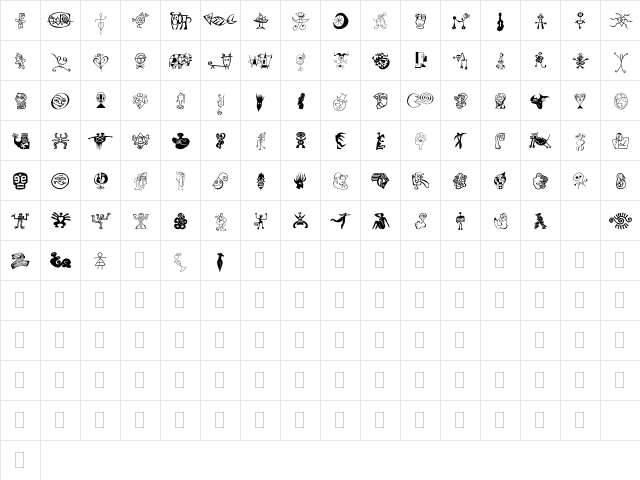
DF Moderns Regular
| Foundry | International Typeface Corporation |
| Designer | David Sagorski |
Design Context for DF Moderns Typeface
DF Moderns is a composed and adaptable typeface that performs quietly and consistently across a wide range of design contexts.